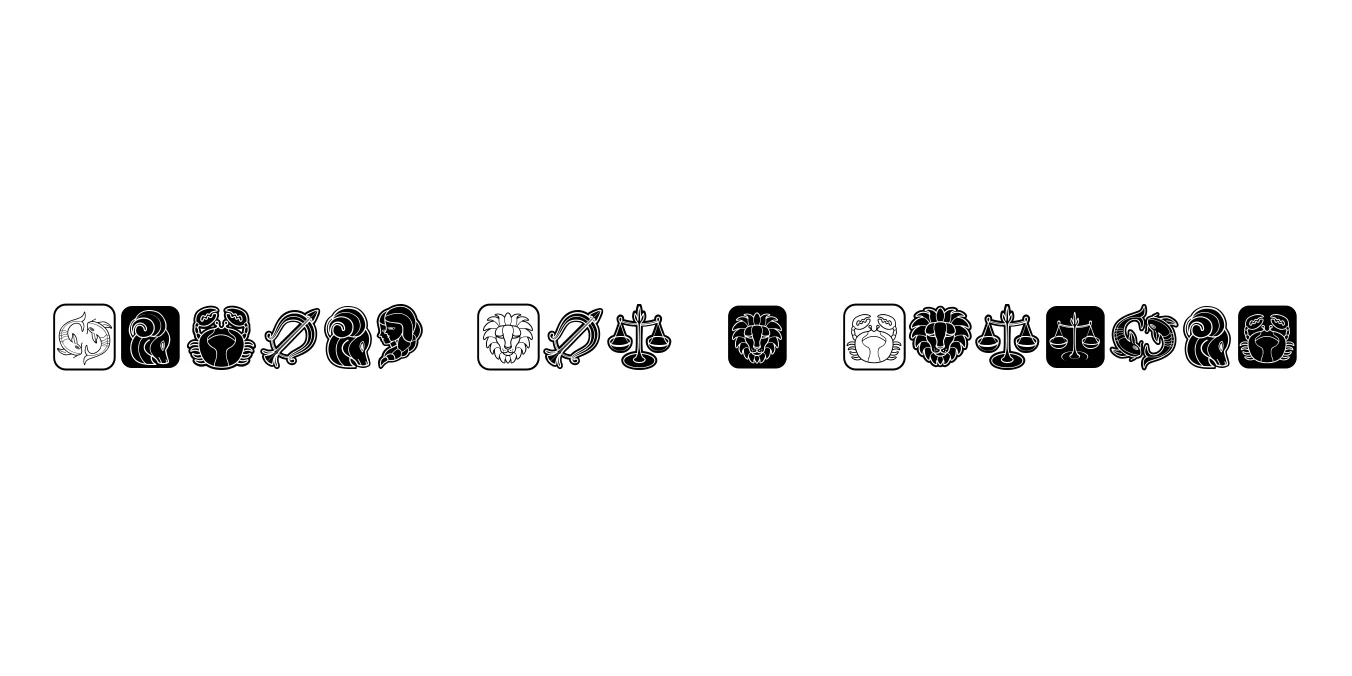
Zodiac Signs Regular
Designed by Woodcutter (Rodrigo Araya Callejas)
| Category | Dingbat |
| Designer | Woodcutter (Rodrigo Araya Callejas) |
Zodiac Signs Regular is a specialized dingbat typeface crafted to provide a comprehensive suite of astrological iconography. Developed by the prolific designer Woodcutter, this font translates the twelve western zodiac symbols and related celestial icons into a digital format, allowing for seamless integration of mystical graphics into text-based projects without the need for external image files.
Since its release, the font has become a go-to resource for creators working within the wellness, spirituality, and astrology niches. Its clean, high-contrast outlines ensure that symbols like Aries, Leo, and Scorpio remain perfectly legible at both small print sizes for horoscope columns and large-scale applications for thematic poster designs.
Zodiac Signs Regular Best Uses
Perfect for monthly horoscope columns in magazines and newspapers.
Ideal for icon sets on astrology websites and spiritual lifestyle blogs.
Great for creating themed merchandise, posters, and social media graphics.
Used for logos and visual identifiers for wellness and mystic brands.